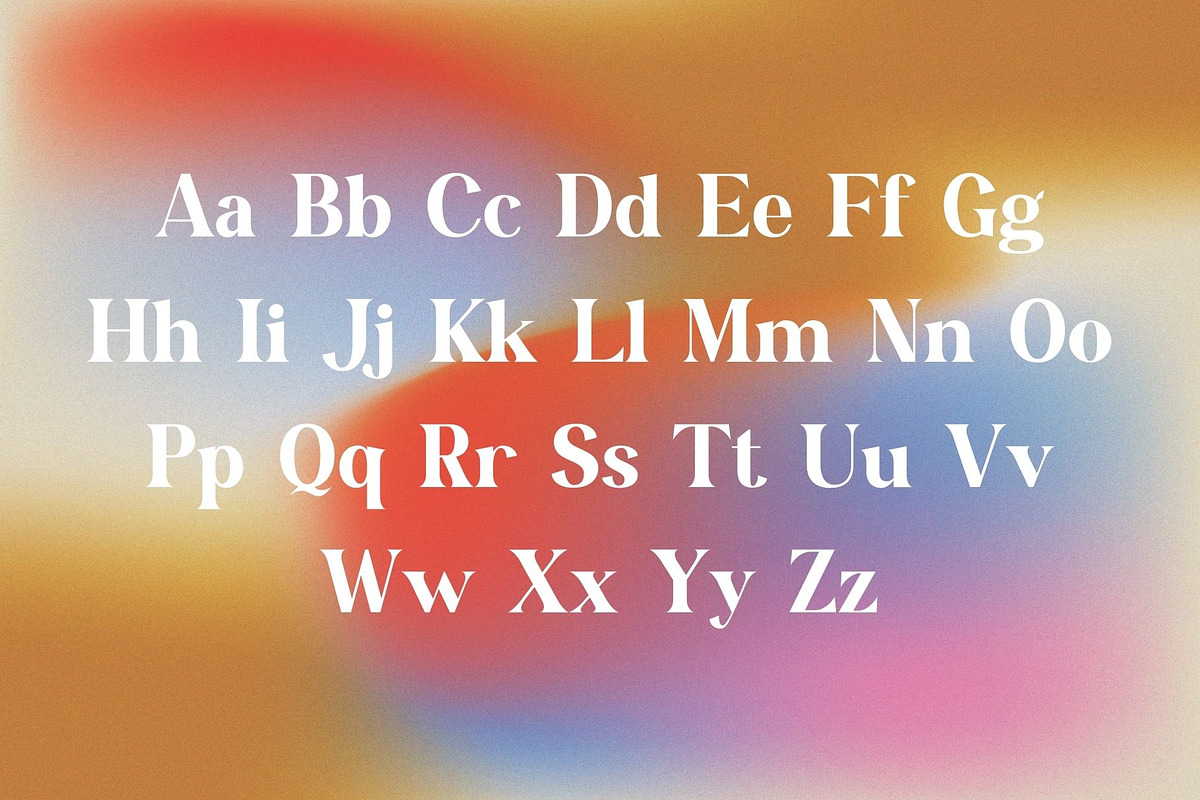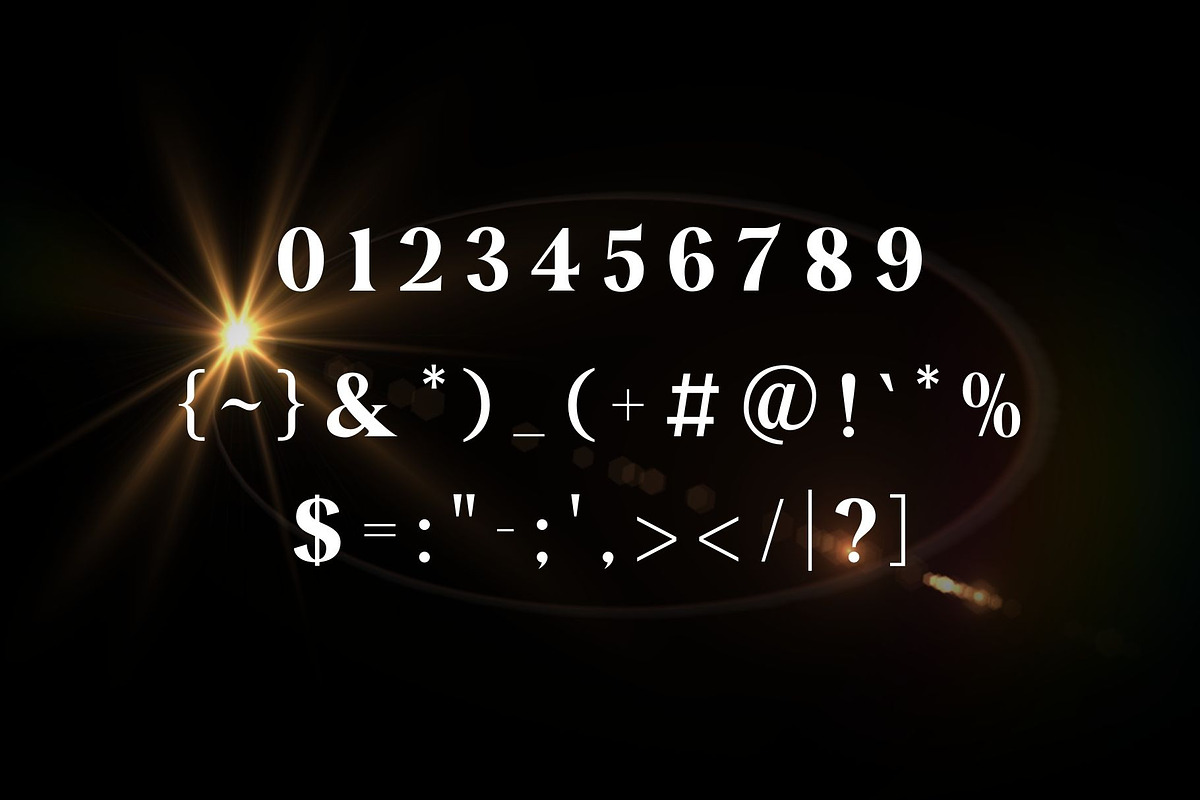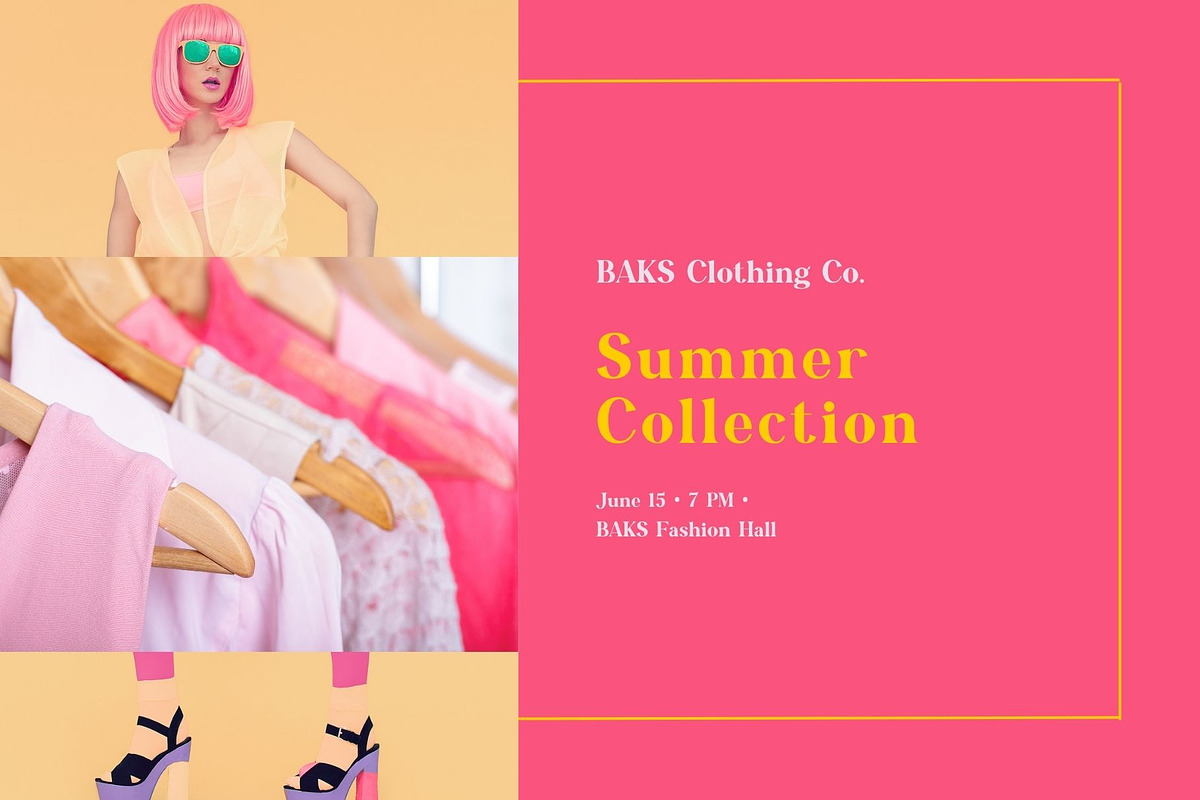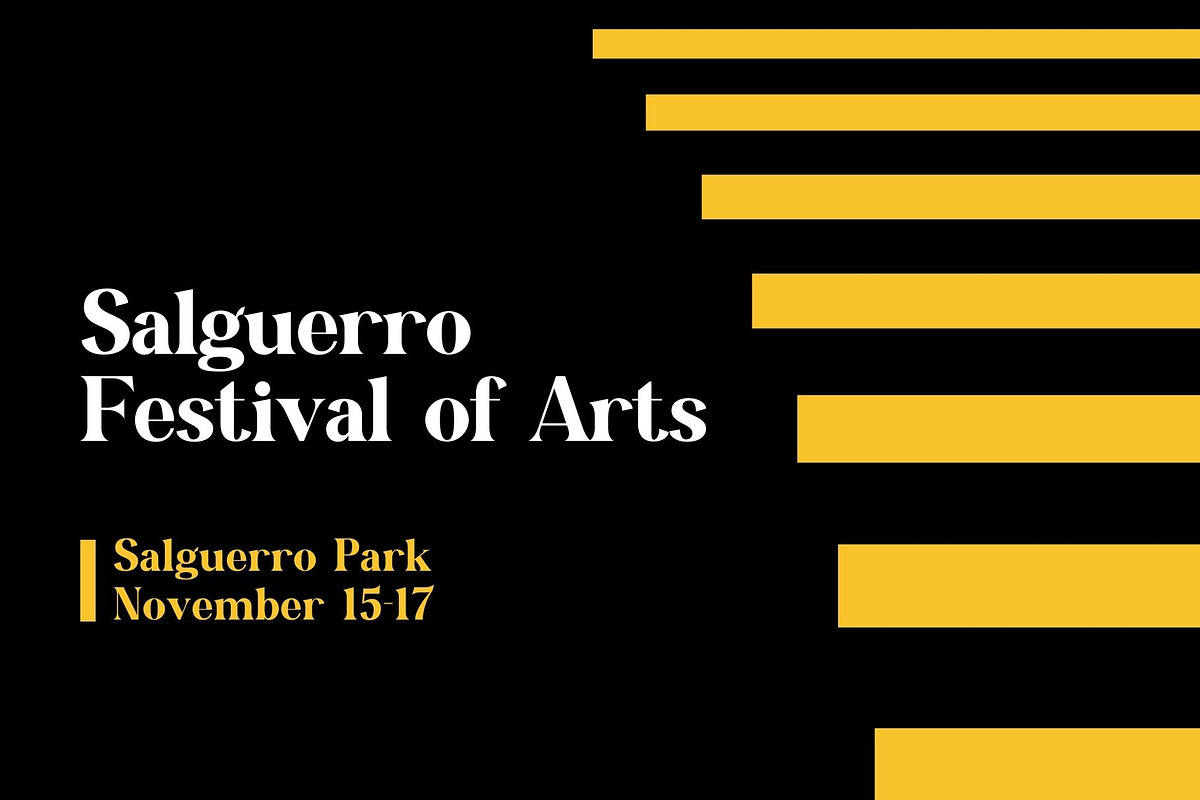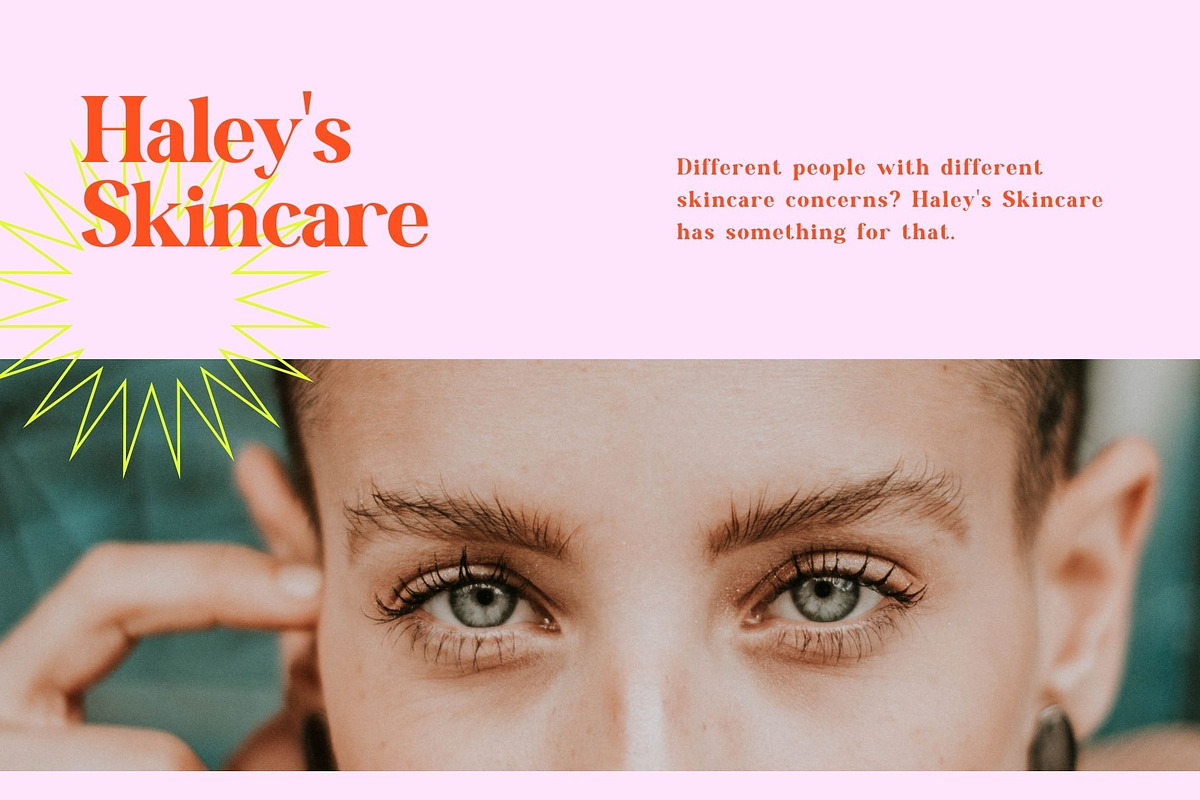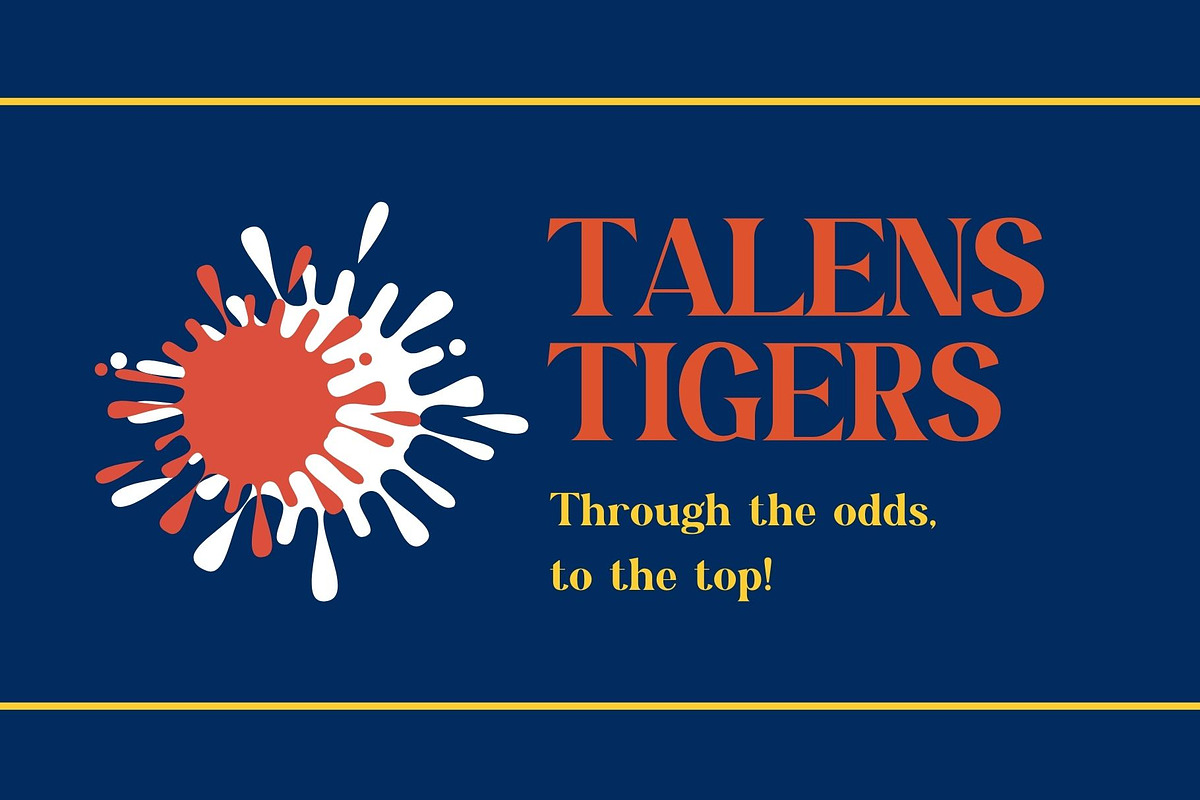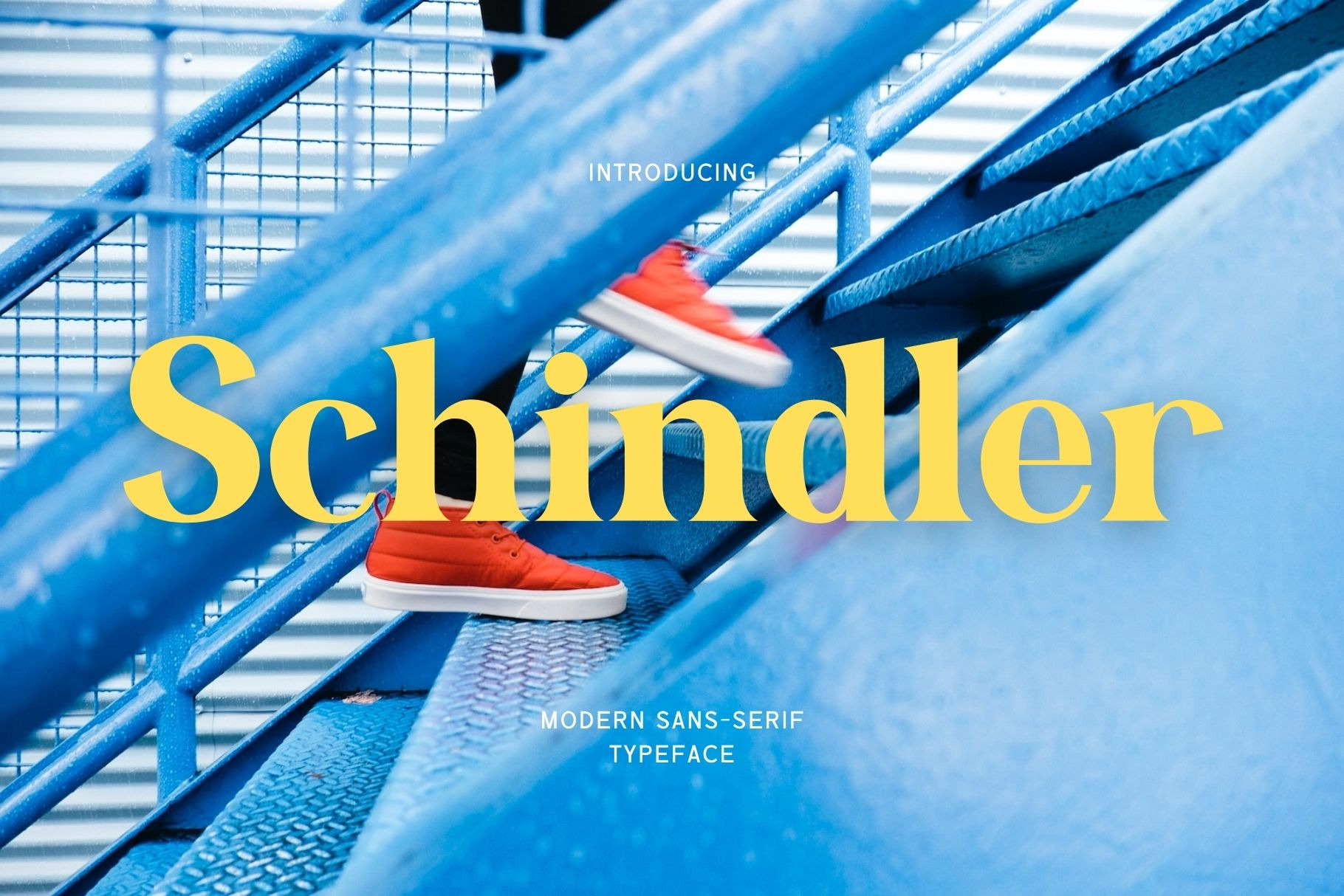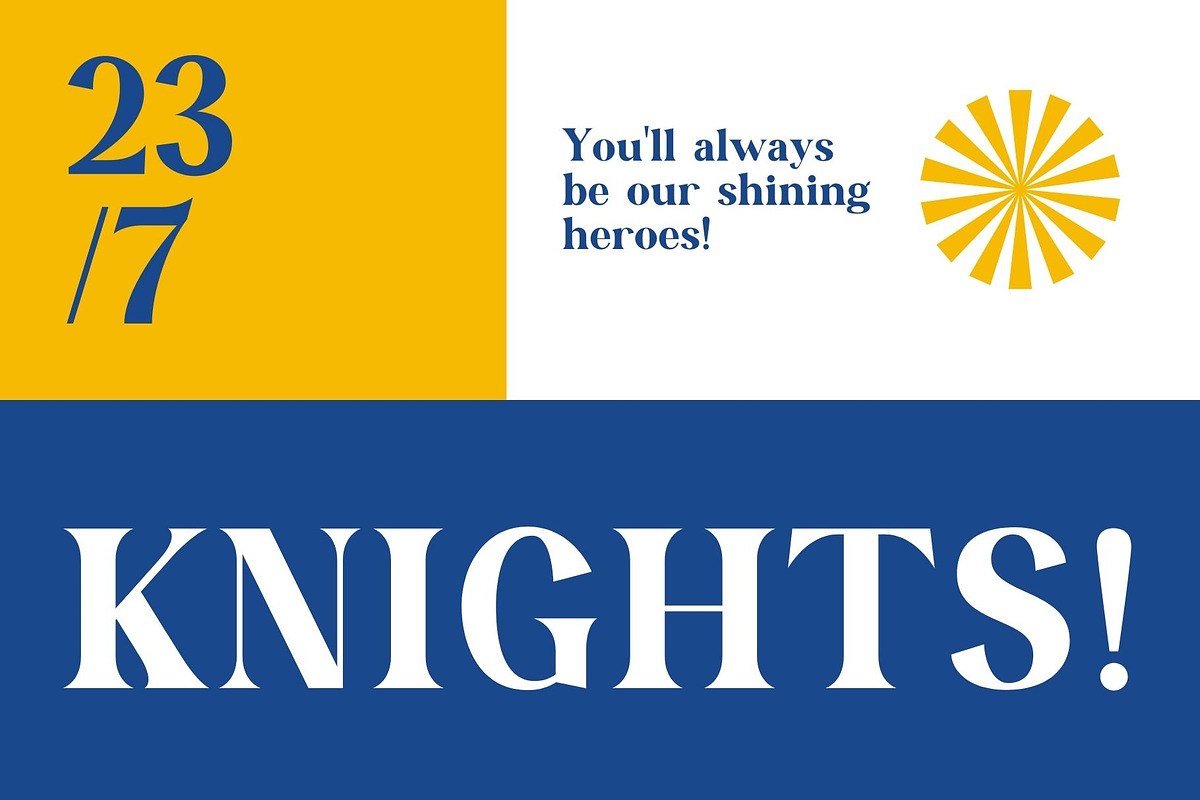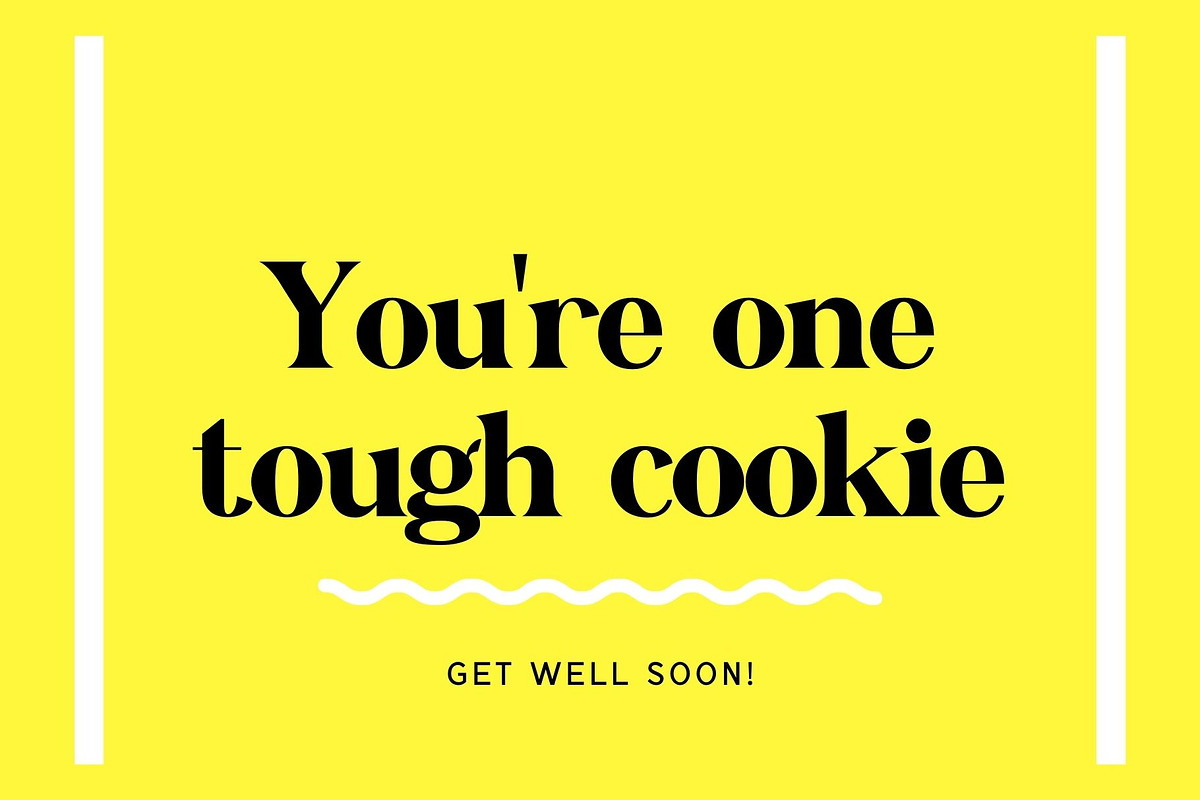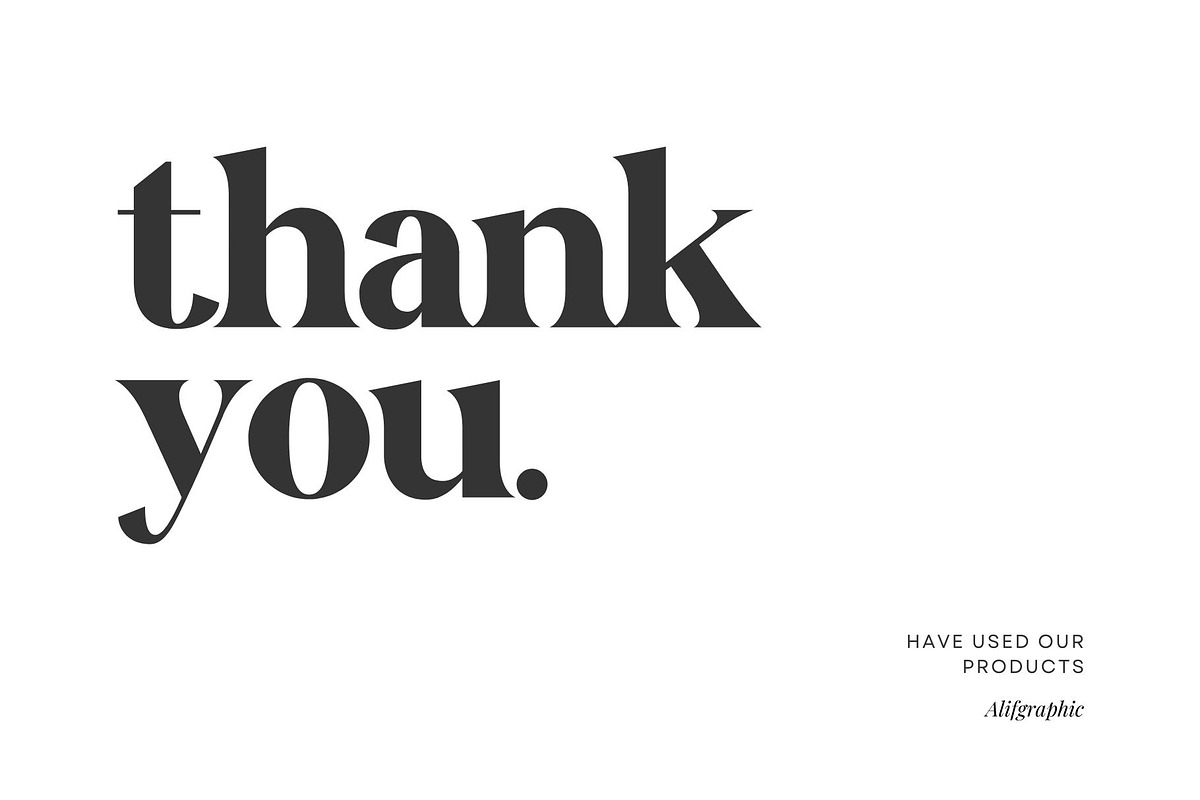
Schindler-Modern Sans Serif Typeface
Introducing 'Schindler' Font:
Explore the captivating 'Schindler' font, featuring a beautiful series of letters meticulously crafted to enhance your writing experience. The neat lettering is tailored for modern and visually pleasing writing needs, offering a perfect blend of a modern impression with an elegant touch. Our top priority is maintaining tidiness in the creation of each letter, ensuring a polished and refined appearance. Dive into the creative possibilities of this font product; have fun and be creative, as the results are guaranteed to be highly satisfying.
Ideal for:
- Modern Designs
- Beauty and Fashion
- Elegant Creations
- Versatile Applications
- Social Media Designs
- Ready for Creative Expression
- Immaculately Crafted Letters